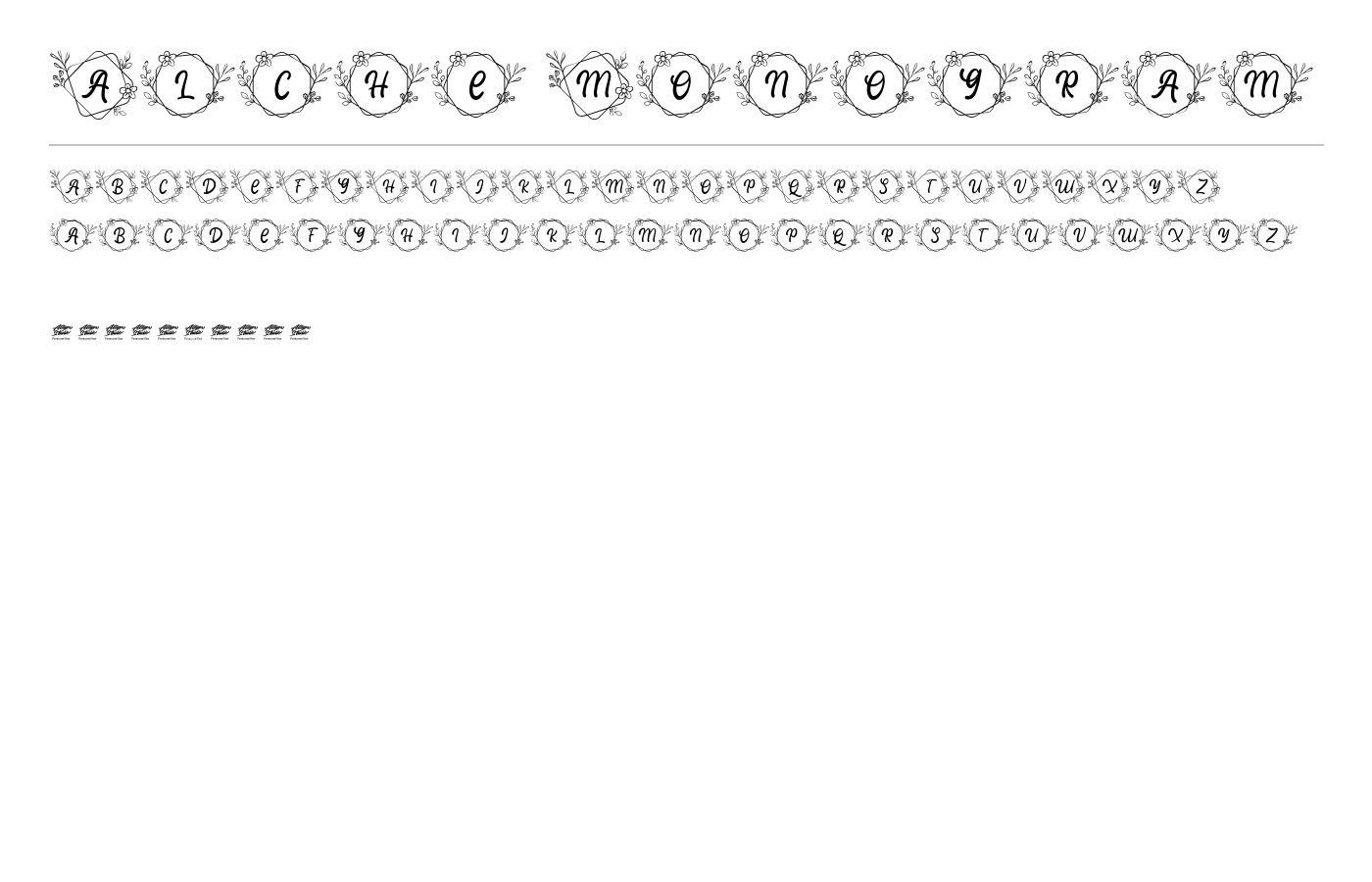
Alche Monogram Font is an elegant, delicate script typeface adorned with intricate floral wreaths, giving each letter a sophisticated and handcrafted feel. Its light weight and ornamental style make it perfect for luxury branding, wedding invitations, and decorative logos where a refined, romantic atmosphere is desired. This font shines in designs that require a personal, artistic touch, especially in monograms and elegant packaging.
Alche Monogram Font
About Alche Monogram Font